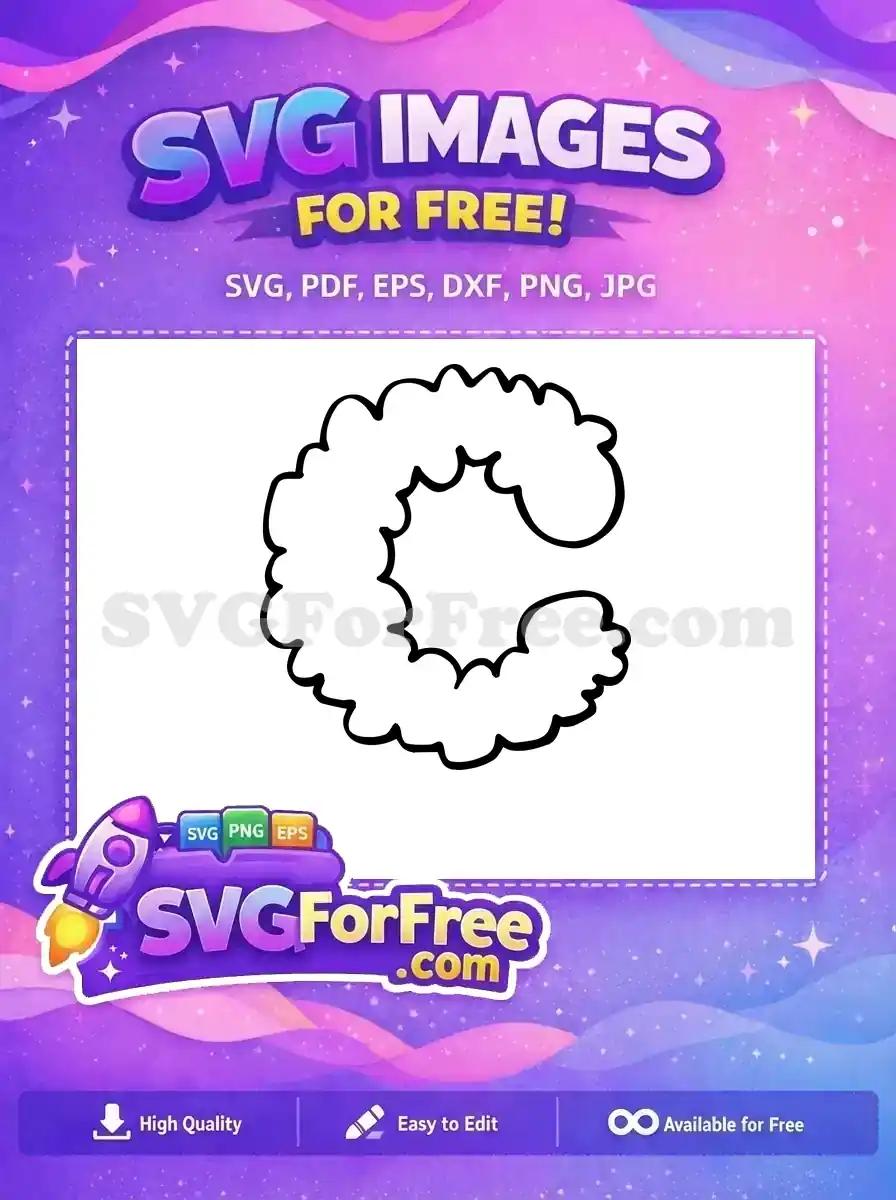
Free Cloud Font Free Letter C Alphabet Free SVG – Instant Download
Free bubbly letter C vector with cloud-like edges.
Free Cloud Font Free Letter C Alphabet Free SVG